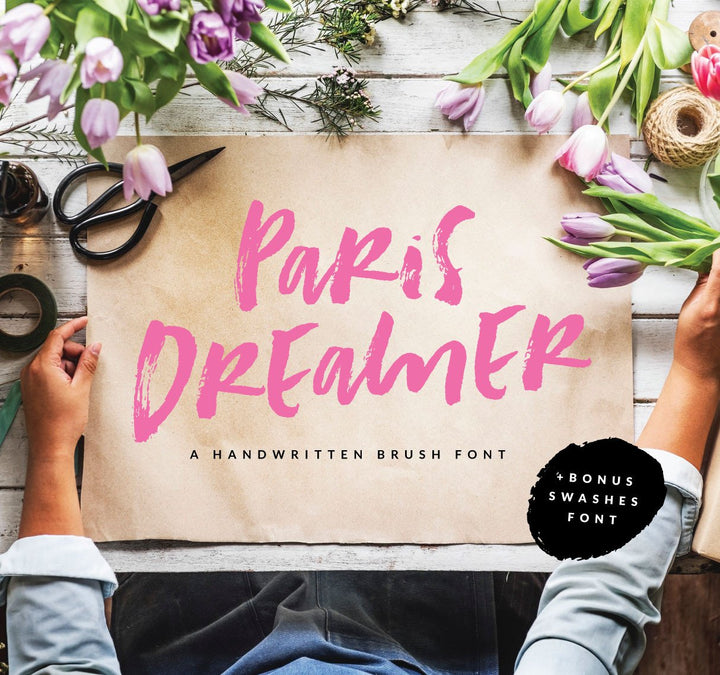
Introducing the Paris Dreamer Font in our Fonts Collection!
I simply can’t get enough of brushed-style fonts these days. As I took one of my thick stroke brushes, and current favorite, watching how the lines evolved into letters was just a natural process.
I wanted to develop a bold font, visually speaking, but also with a carefree personality that I could use for headlines as well as photo quotes on Instagram; and that’s how the Paris Dreamer Font came to be.
This is a font that will certainly not go unnoticed. Inspired by a mix of romantic freedom, feminine and casual looks. Featuring an alternate lowercase set that will allow you to change the font’s behavior between common letters and achieve that natural and organic look you see on printed and digital typefaces.
Comes with a BONUS set of popular words and expressions, such as: “Hello”, “New”, “Yes!!”, “Only”, “For”, “XoXo”, “Today”, “Love”, “Peace”, “Happy”, “Fresh” and many more. Symbols, arrows, and also stylish lines and strokes to play around with underlined texts.